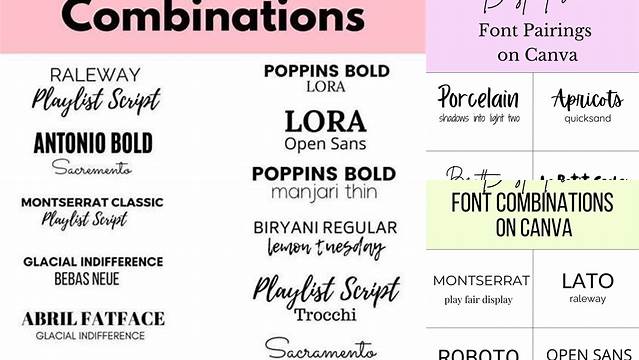
Canva Font Magic: Free Combinations For Stunning Designs
Creating visually appealing designs on Canva is easier than ever, especially when you nail the font combinations. Using the right fonts can elevate your design from amateur to professional, grabbing attention and conveying your message effectively. But with so many options available, how do you choose the best free font combinations on Canva? Don't worry, guys! I'm here to guide you through some killer pairings that will make your designs pop. Let's dive in!
1. Classic Serif & Sans-Serif Pairings
Combining a serif font with a sans-serif font is a classic approach that never fails. Serif fonts, like Playfair Display or Lora, have those little feet (serifs) that give them a traditional and elegant look. Sans-serif fonts, such as Open Sans or Montserrat, are clean and modern. Using them together creates a balanced and readable design. For example, you could use Playfair Display for your headings to add a touch of sophistication, and pair it with Open Sans for the body text to ensure readability. The contrast between the two fonts provides visual interest and helps to guide the reader's eye through your design. This font combination is particularly effective for designs that need to convey a sense of authority and trustworthiness, such as reports, presentations, or formal invitations. Remember, the key is to ensure that the fonts complement each other rather than compete for attention.
2. Modern Font Combinations for Canva
If you're aiming for a contemporary and stylish look, modern font combinations are the way to go. Think geometric sans-serifs paired with sleek serifs or even script fonts with a minimalist touch. For instance, combining Montserrat with Raleway creates a clean and sophisticated vibe, perfect for tech startups or fashion blogs. Another great option is pairing Bebas Neue (a tall and impactful sans-serif) with Roboto (a versatile and readable sans-serif). This creates a dynamic contrast that draws the viewer in. You can also experiment with using a handwritten font like Pacifico for headings, paired with Open Sans for the body text. This adds a personal and creative touch to your design. However, it’s crucial to ensure that the handwritten font is legible and doesn’t overpower the rest of the design. Modern font pairings can give your designs a fresh and cutting-edge feel, but always prioritize readability and clarity.
3. Elegant Font Pairings on Canva
For designs that require a touch of elegance and sophistication, consider using elegant font pairings. These often involve serif fonts with delicate features or script fonts that exude grace. A beautiful combination is pairing Playfair Display with Montserrat Light. Playfair Display offers a refined and classic feel, while Montserrat Light provides a clean and understated contrast. This pairing is ideal for wedding invitations, luxury brand materials, or any design that aims to convey a sense of sophistication. Another excellent option is combining Lora with Lato. Lora is a well-balanced serif font with a contemporary feel, and Lato is a clean and readable sans-serif. This font combination is perfect for websites, magazines, or any design that requires a balance between elegance and readability. When using elegant fonts, pay attention to kerning (the space between letters) and leading (the space between lines) to ensure that the text is visually appealing and easy to read. Remember, the goal is to create a design that is both beautiful and functional.
4. Playful Font Combinations for Canva
If you want to inject some fun and personality into your designs, playful font combinations are the perfect choice. These pairings often involve quirky sans-serifs, hand-drawn fonts, or bold display fonts that grab attention. For example, combining Luckiest Guy (a fun, hand-drawn font) with Montserrat creates a playful yet readable design. This combination is great for children’s books, party invitations, or any design that needs a touch of whimsy. Another fun option is pairing Bangers (a comic-style font) with Roboto. This font combination is perfect for posters, social media graphics, or any design that aims to be bold and attention-grabbing. When using playful fonts, it’s important to consider your target audience and the overall message of your design. Make sure that the fonts align with the tone and style you’re trying to convey. Also, be mindful of readability. While playful fonts can be fun, they shouldn’t compromise the clarity of your message.
5. Professional Font Combinations for Canva
When designing for business or professional settings, choosing the right font combinations is crucial to convey credibility and trustworthiness. These pairings often involve clean and readable sans-serifs with classic serifs that exude authority. A reliable combination is pairing Open Sans with Merriweather. Open Sans is a highly readable sans-serif that works well for body text, while Merriweather is a sturdy serif font that adds a touch of professionalism to headings. This font combination is ideal for business reports, presentations, or any design that needs to convey a sense of competence and reliability. Another excellent option is combining Lato with Roboto Slab. Lato is a clean and modern sans-serif, while Roboto Slab is a slab-serif that provides a strong and confident feel. This pairing is perfect for websites, brochures, or any design that requires a balance between modernity and professionalism. When using professional fonts, pay attention to details like font size, line height, and letter spacing to ensure that your text is easy to read and visually appealing. Remember, the goal is to create a design that reflects your brand’s values and professionalism.